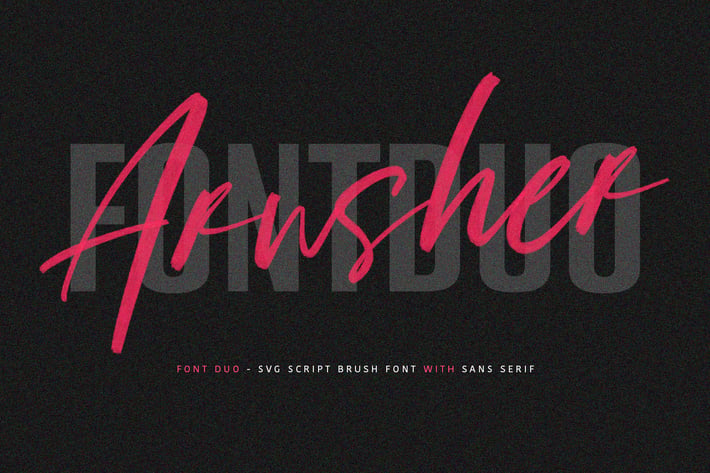
Arusher Brush Font Duo Svg Script Sans Vector Type
Give your designs an authentic brush handcrafted feel. "Arusher" is perfectly suited to signature, stationery, logo, typography quotes, magazine or book cover, website header, flyer, clothing, branding, packaging design and more.